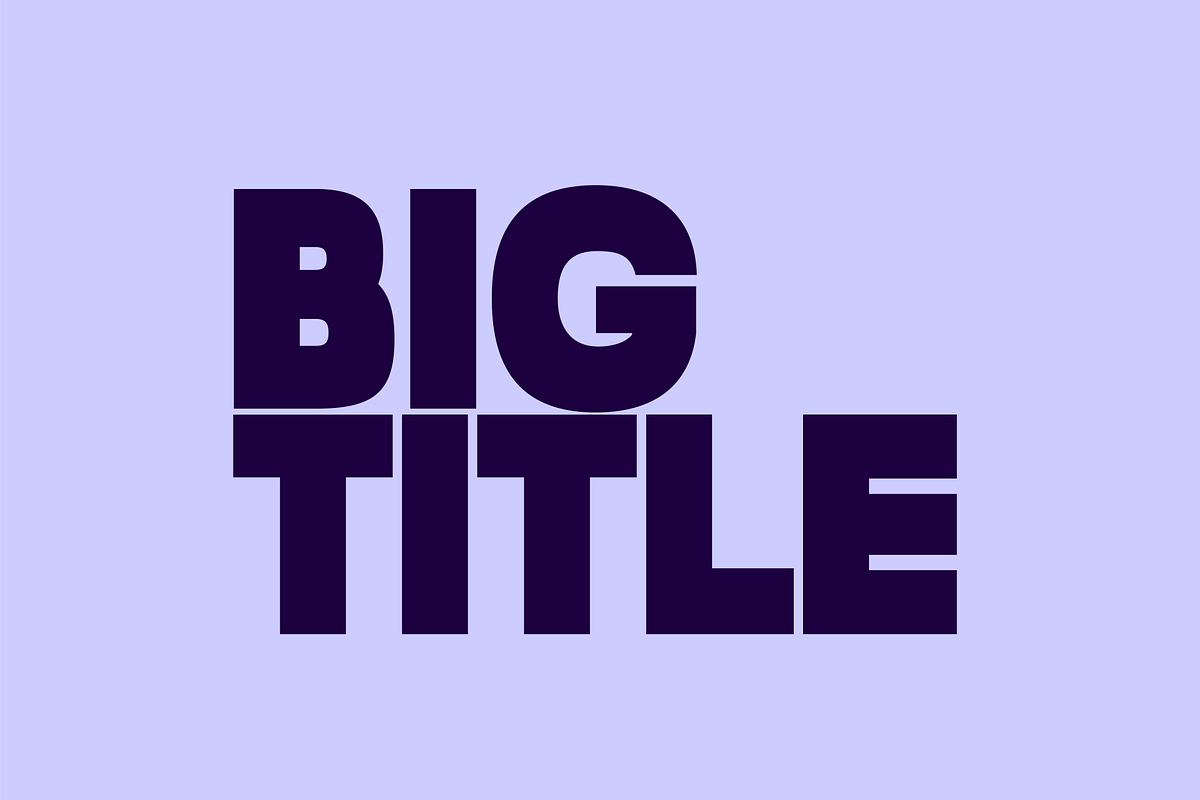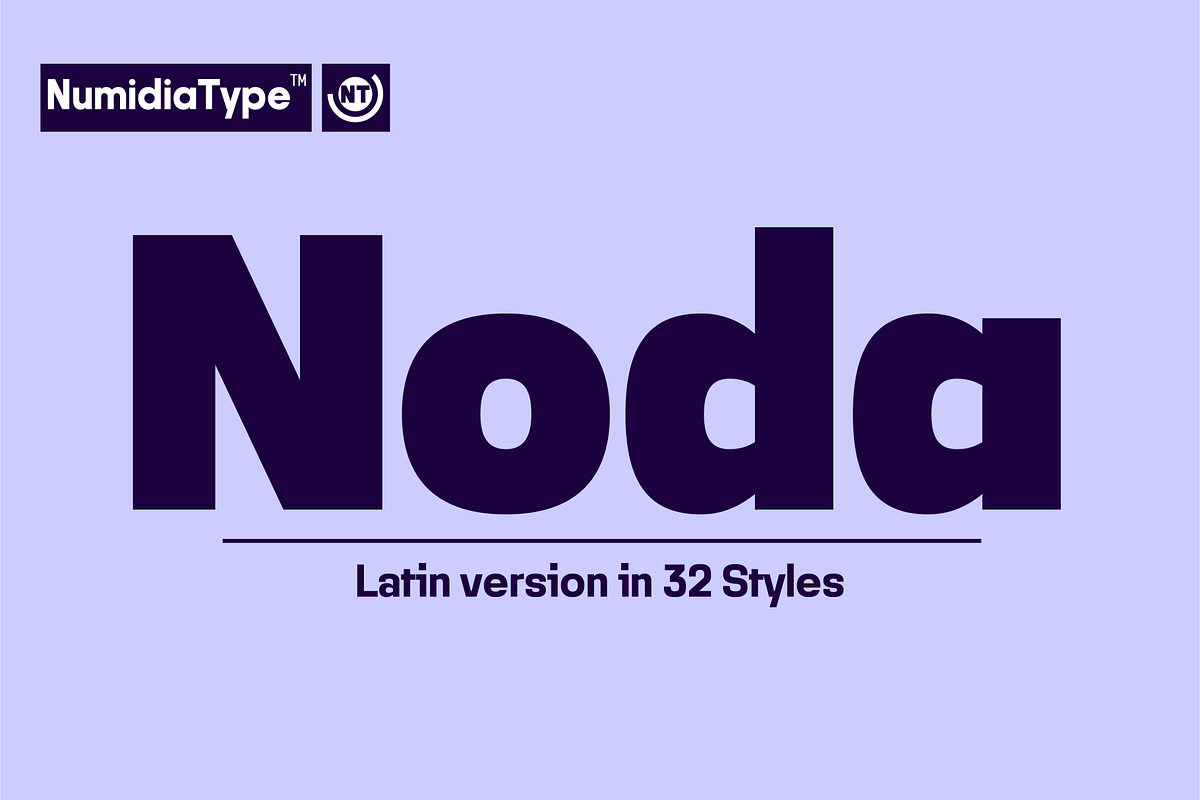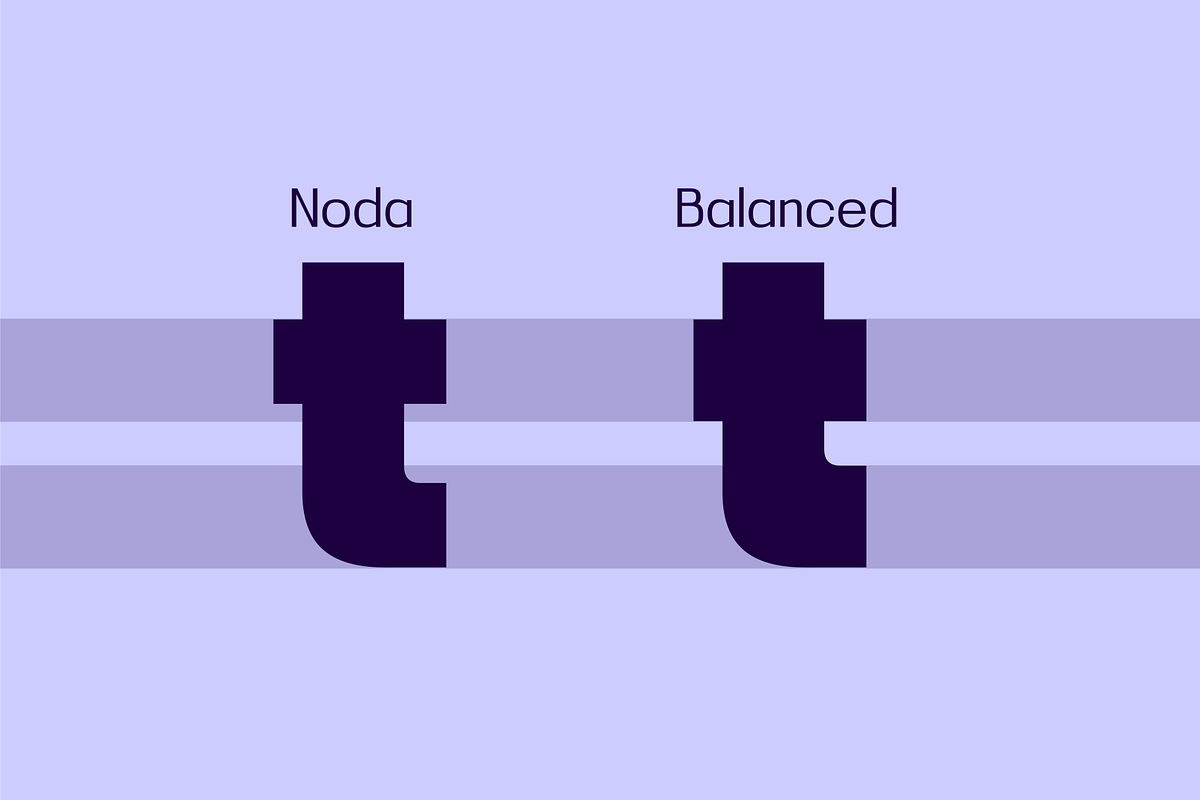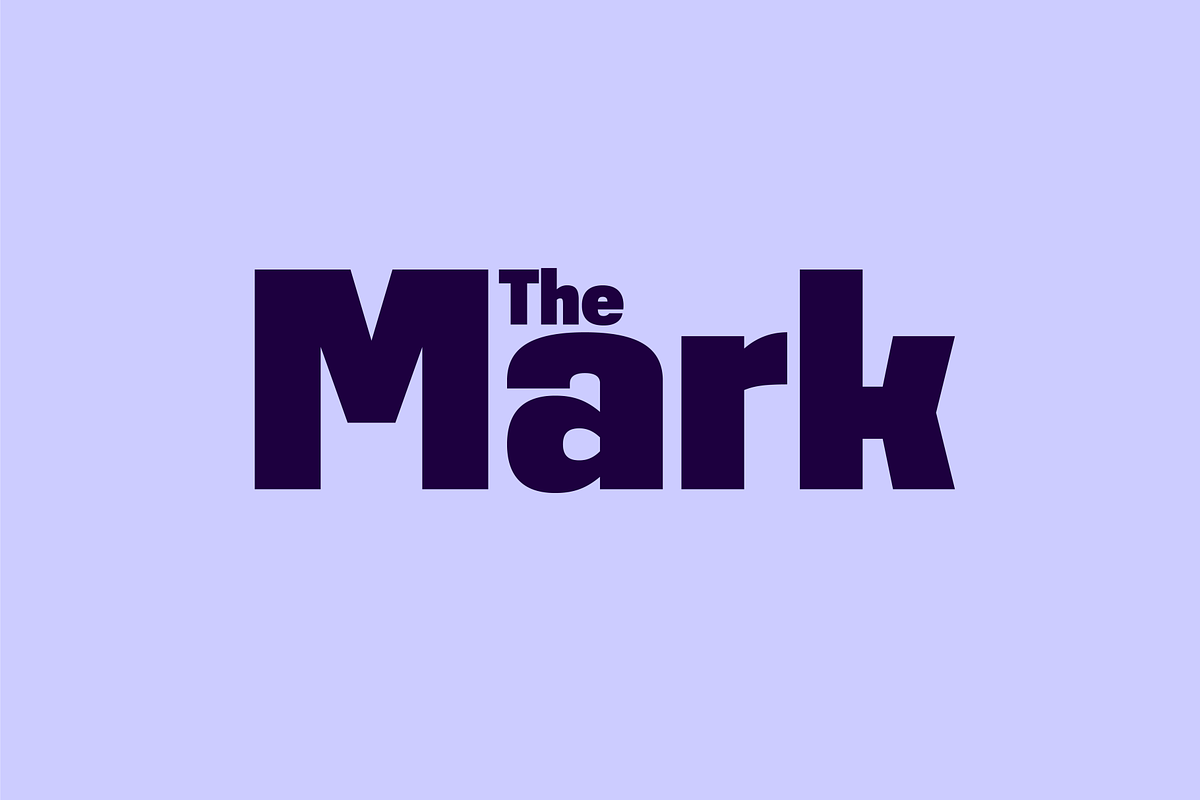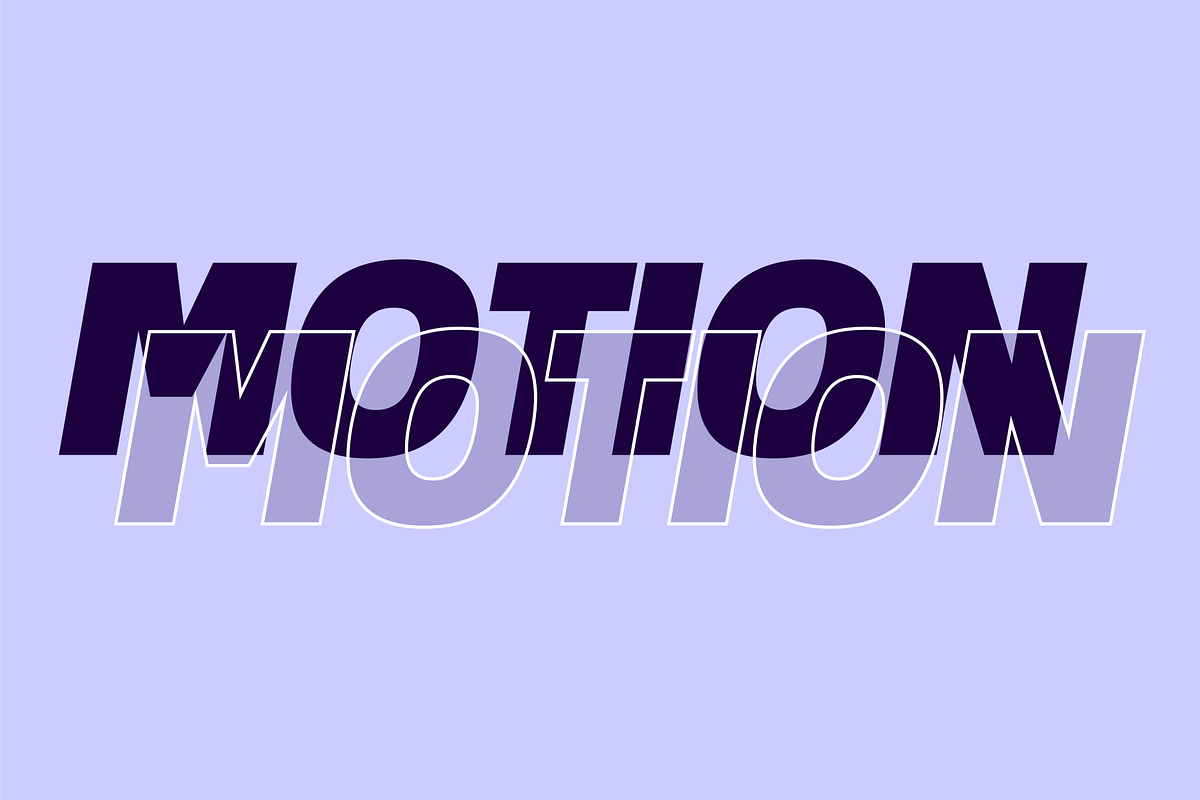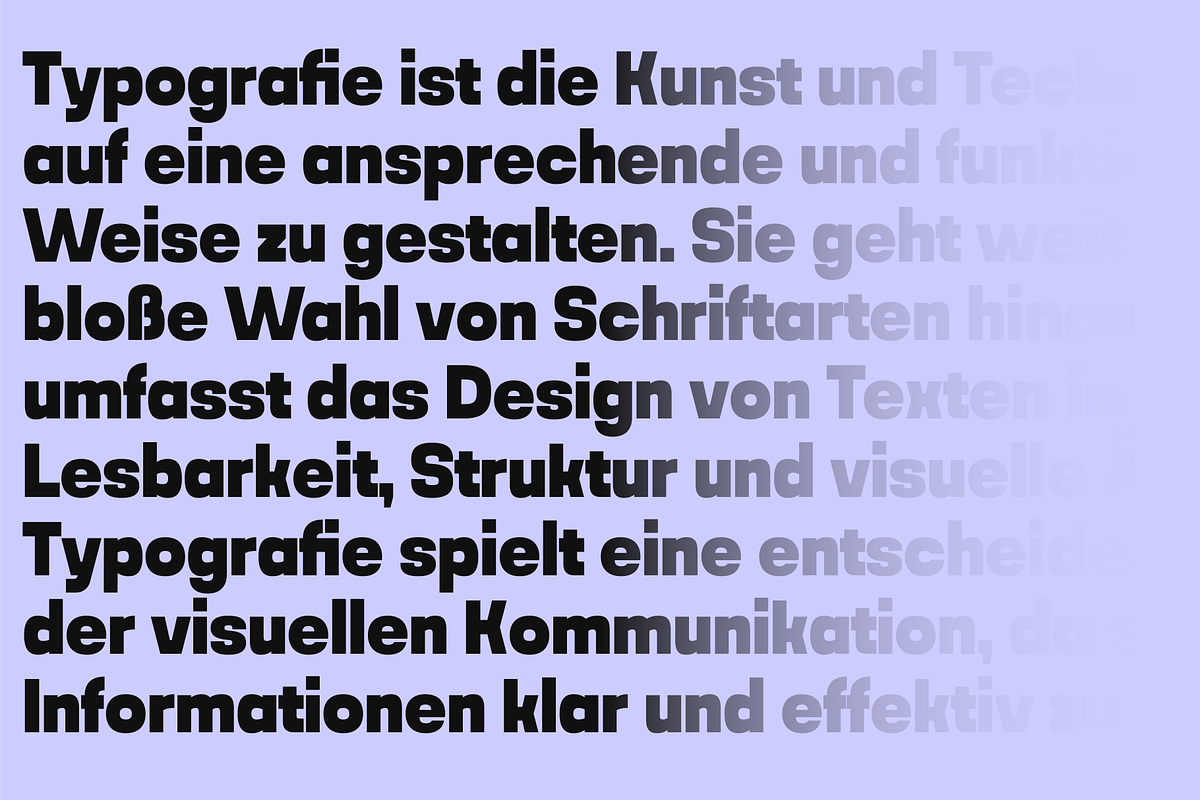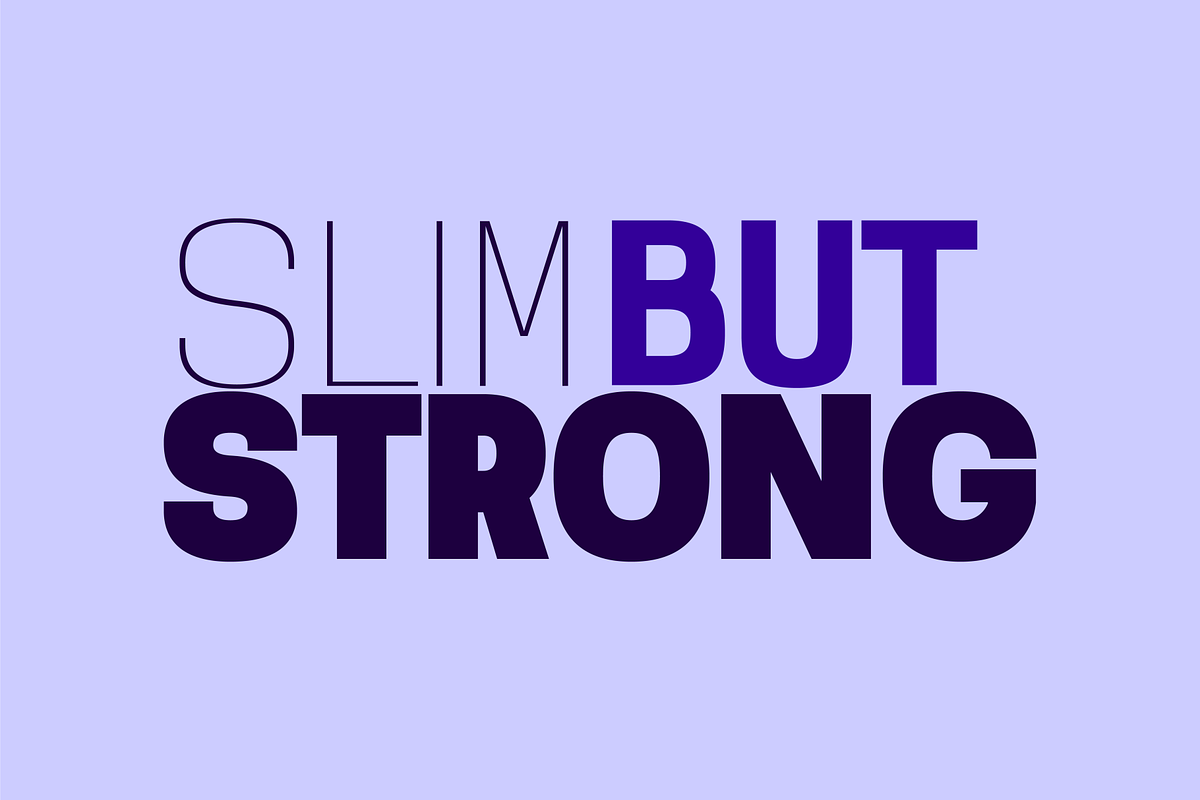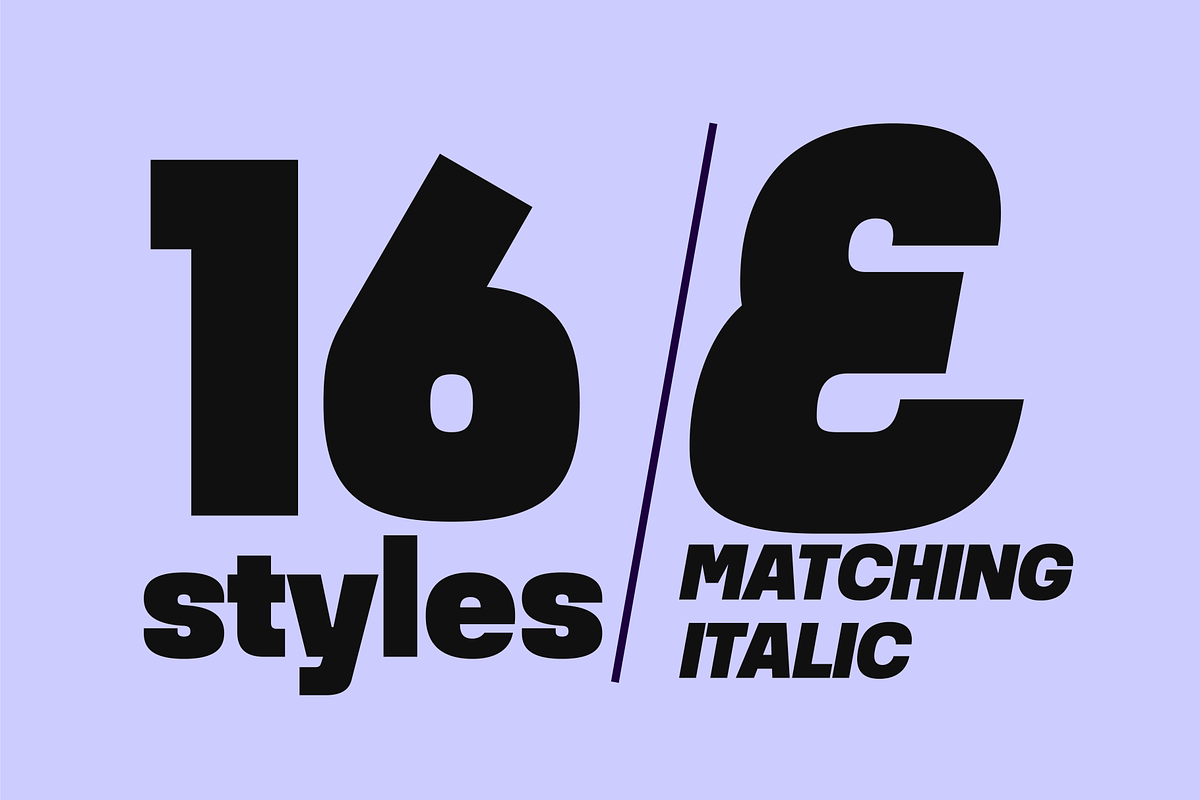
Noda
Noda is a modern geometric sans-serif font designed for versatility. It comes in two distinct families: one with high contrast between vertical and horizontal stems, making it ideal for smaller text sizes, and another with balanced contrast for an overall sense of equilibrium. Both families feature squared curves and are well-suited for a variety of applications, including web design, app development, branding, and motion graphics. Its clean, industrial aesthetic lends itself to projects requiring a contemporary and professional feel.